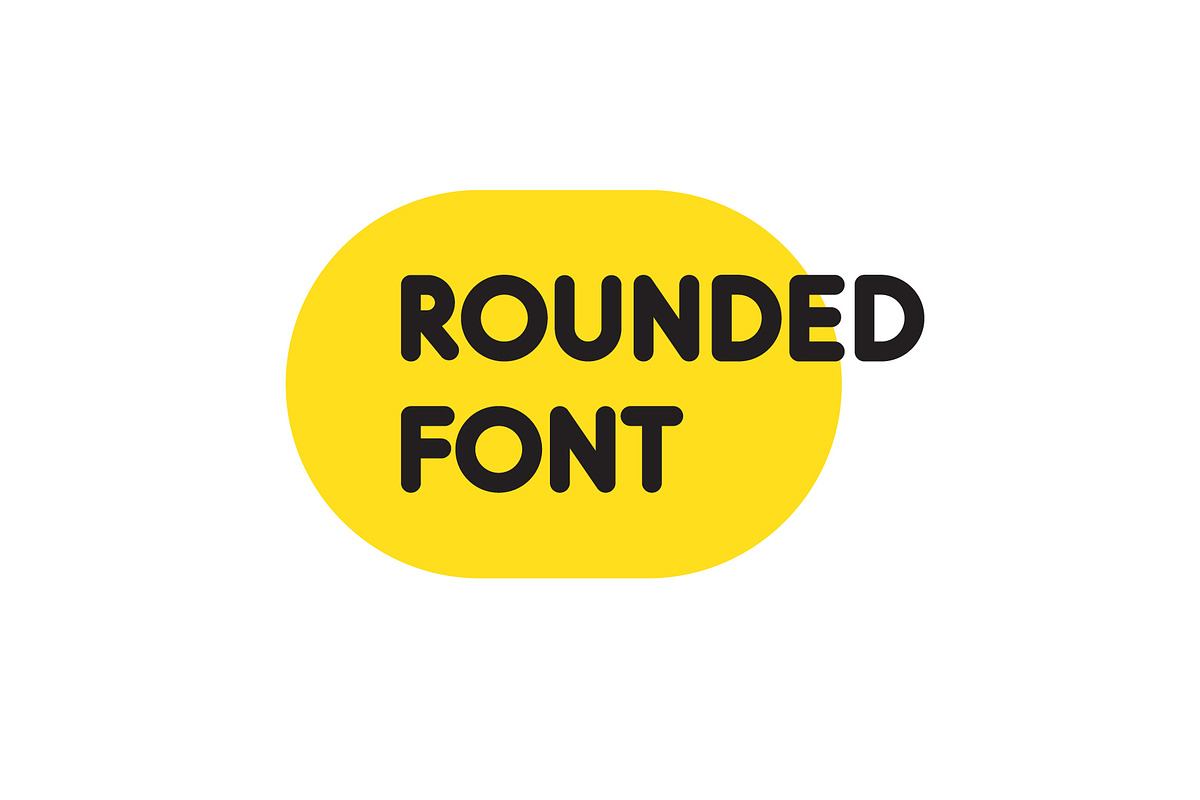
Rounded Modern Font Free Download is a clean, soft-edged typeface designed to bring a friendly, approachable feel to modern design projects. Please note, you are required to purchase this font for commercial use. It is available for free download for testing and personal projects only.
With its smooth curves, geometric balance, and minimalist style, Rounded Modern is perfect for branding, UI/UX design, product packaging, tech startups, social media posts, and lifestyle content. Its rounded corners create a warm and contemporary appearance without sacrificing professionalism or readability.
By choosing Rounded Modern Font Free Download, you're gaining access to a versatile, high-quality font that installs easily and works seamlessly across all major design platforms. Whether you’re building a soft-toned identity or a sleek digital interface, Rounded Modern adds clarity, charm, and modern elegance to your typography.